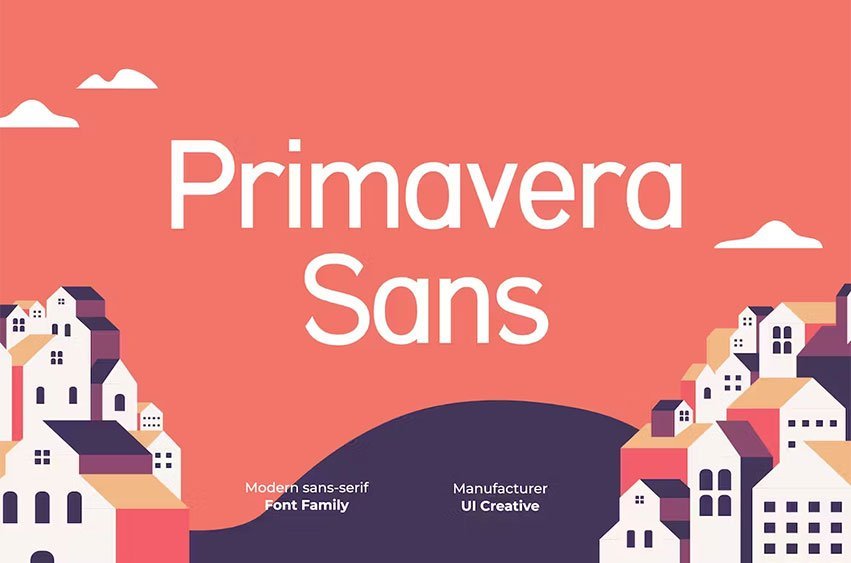
Primavera Sans Font Sans Serif Font comes with 9 different weights that feel beautiful classy, elegant, and modern. This font is perfectly suited for a wide variety of projects, such as signature, stationery, logo, wedding, typography quotes, magazine or book covers, website headers, branding, packaging design, and more. Also, fashion-related branding or editorial design displays both masculine and feminine qualities.
Font Weight:
- Normal
- Italic
- Bold
- Bold Italic
- Extra Bold
- Extra Bold Italic
- Semi Bold
- Thin
- Thin Italic